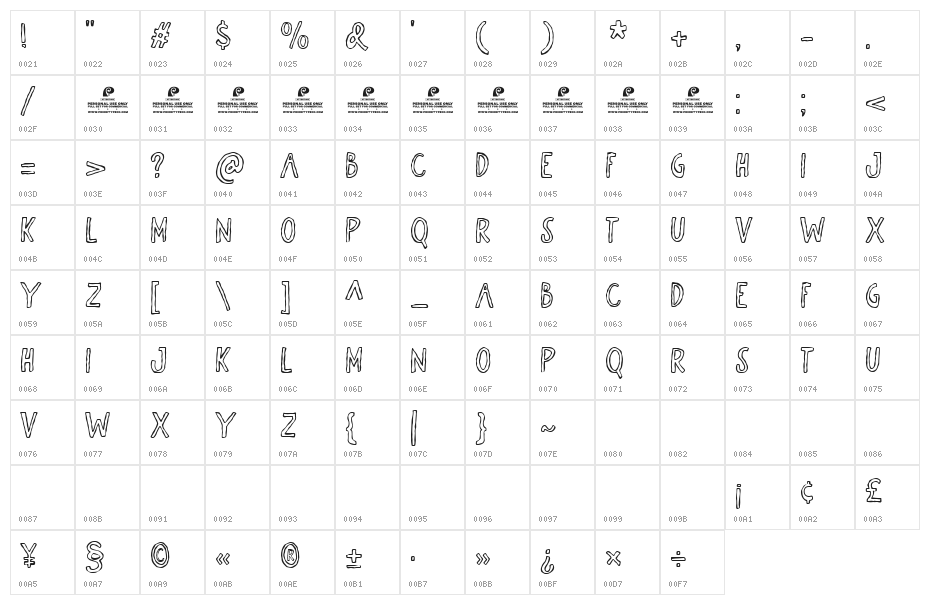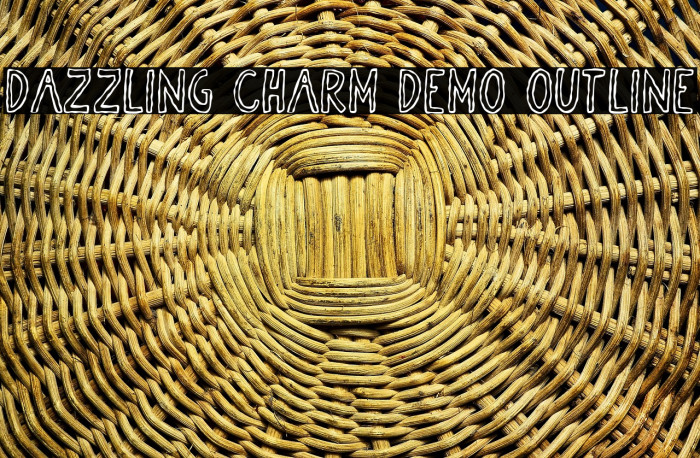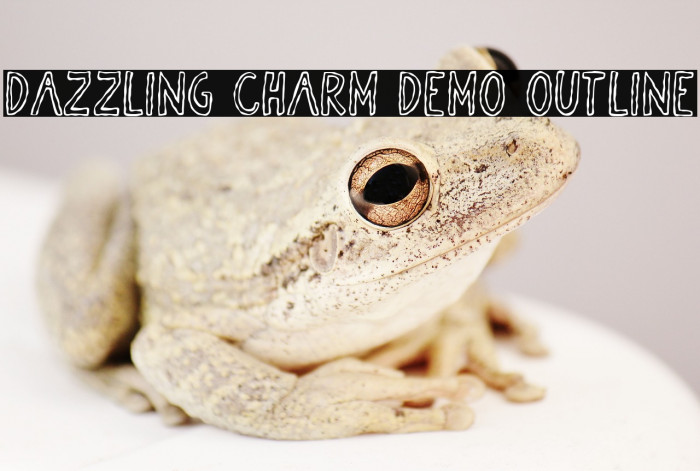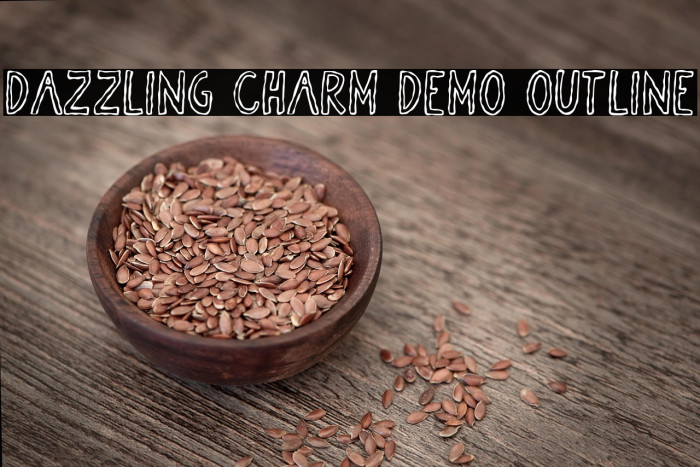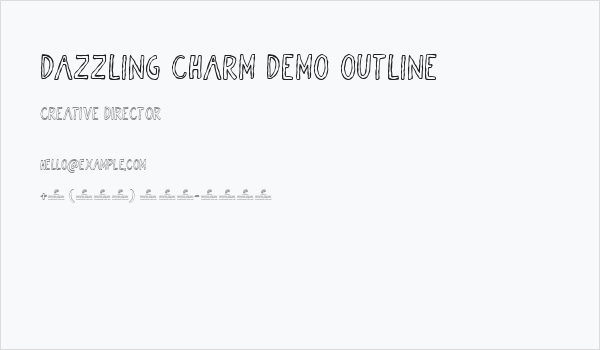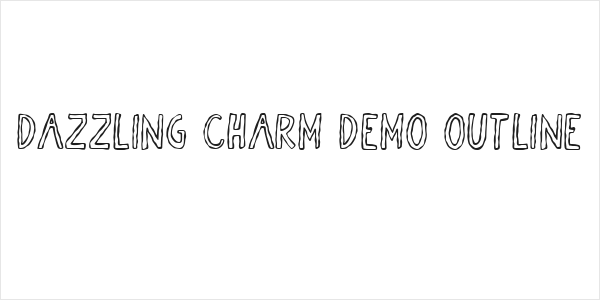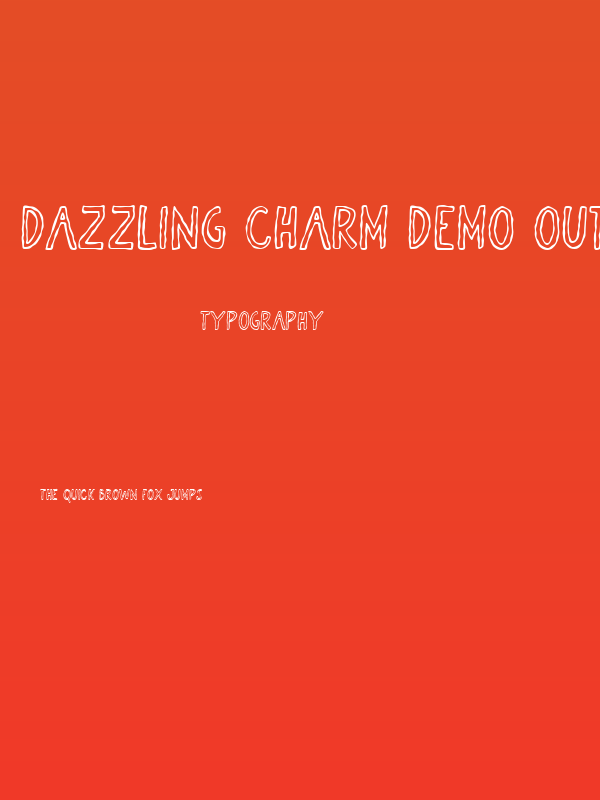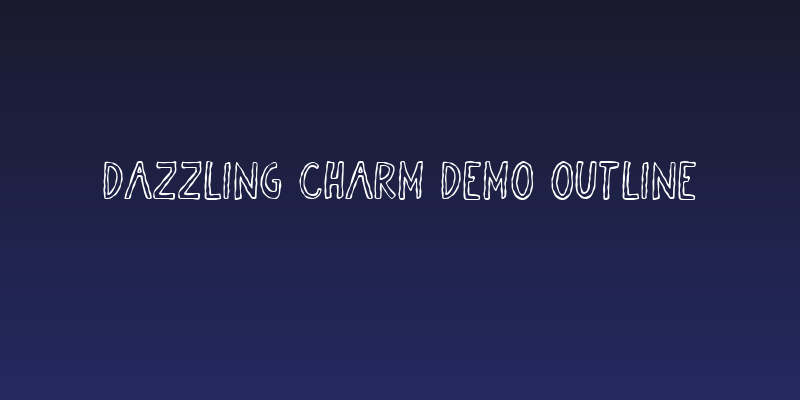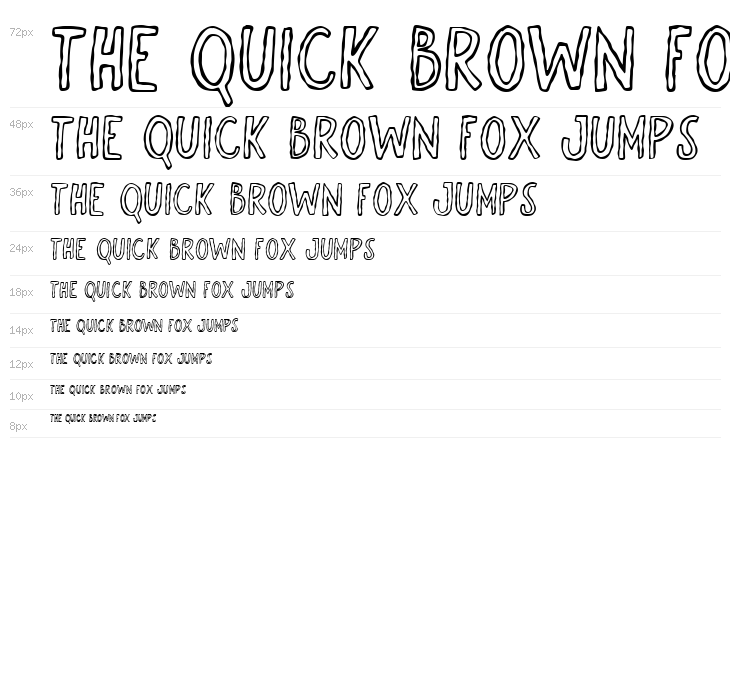
Dazzling Charm DEMO Outline Font
Dazzling Charm DEMO Outline Description
This font features a playful and whimsical outline style, characterized by its hand-drawn appearance. The letters have a casual, uneven stroke that gives them a lively and dynamic feel. The uppercase and lowercase characters maintain a consistent style, with a slightly irregular shape that adds to the charm. The numbers and special characters follow the same design, ensuring a cohesive look across all glyphs. This font is ideal for projects that require a fun and informal touch, such as children's books, playful branding, or creative posters.
| Overall Style | Whimsical, Playful |
| Proposed Projects | Ideal for children's books, playful branding, creative posters, and informal invitations. |